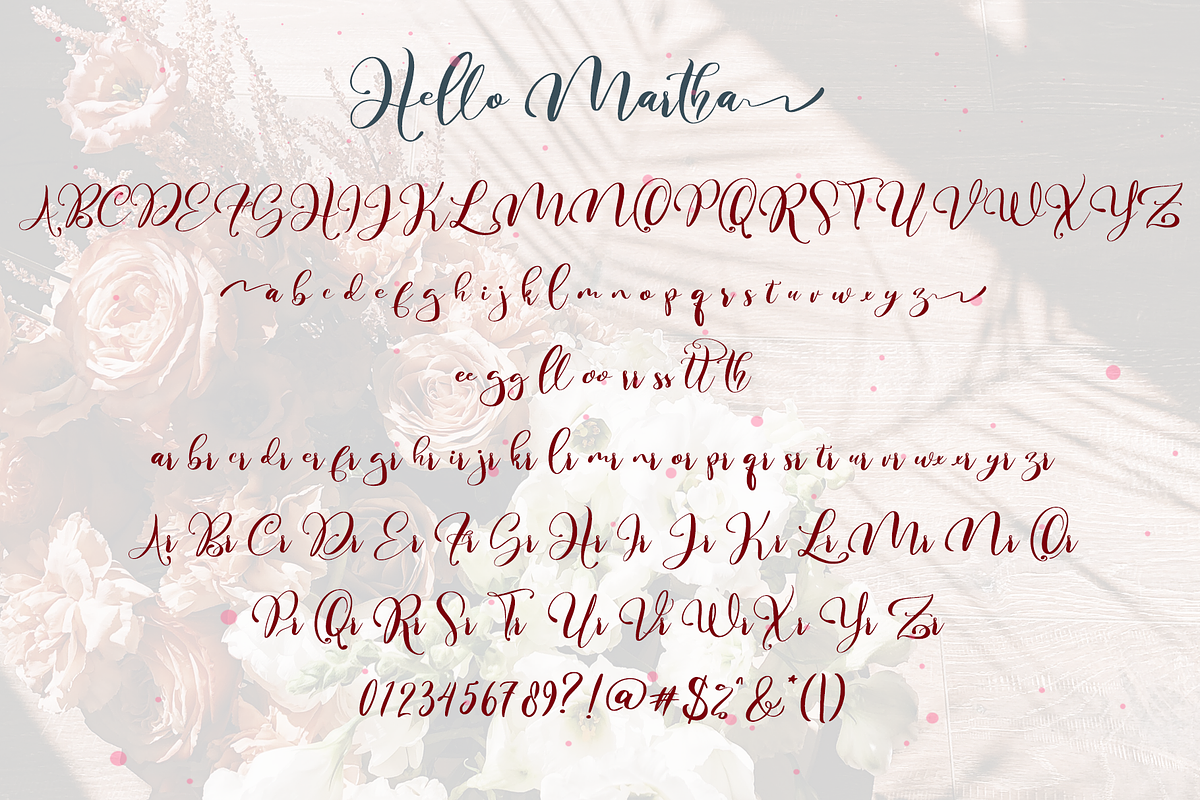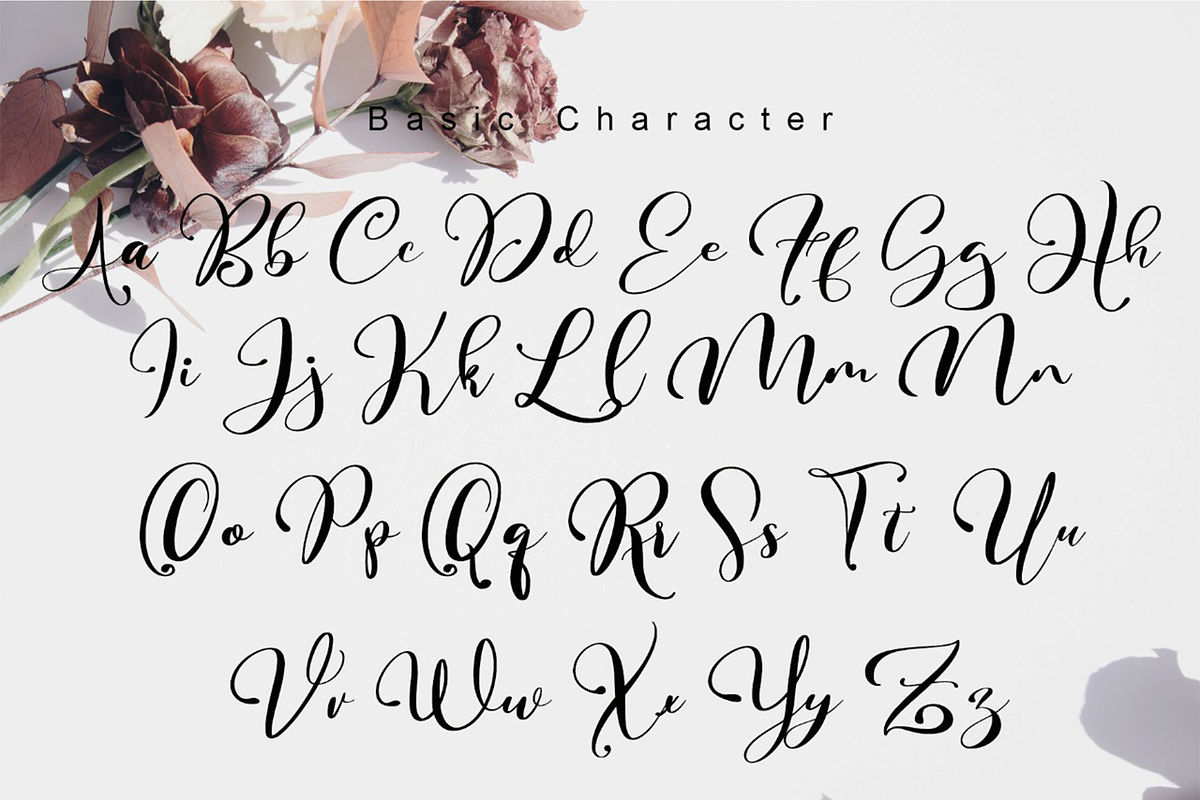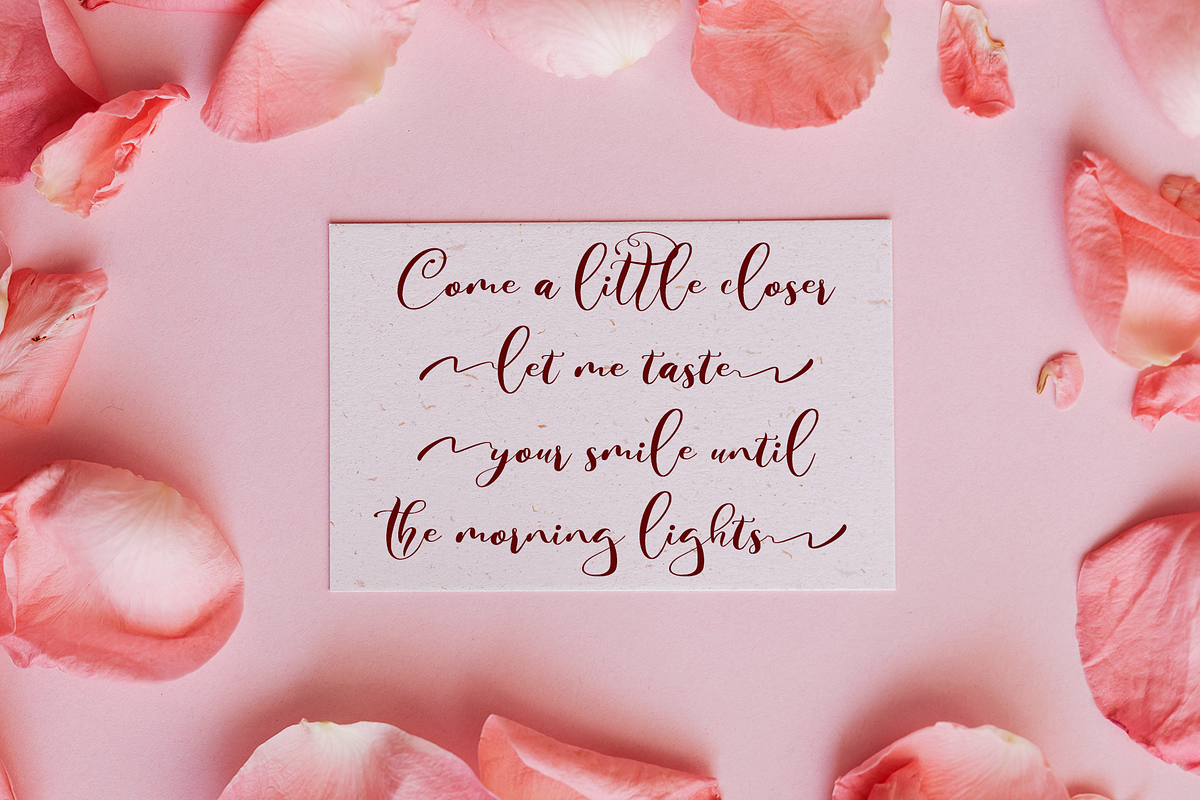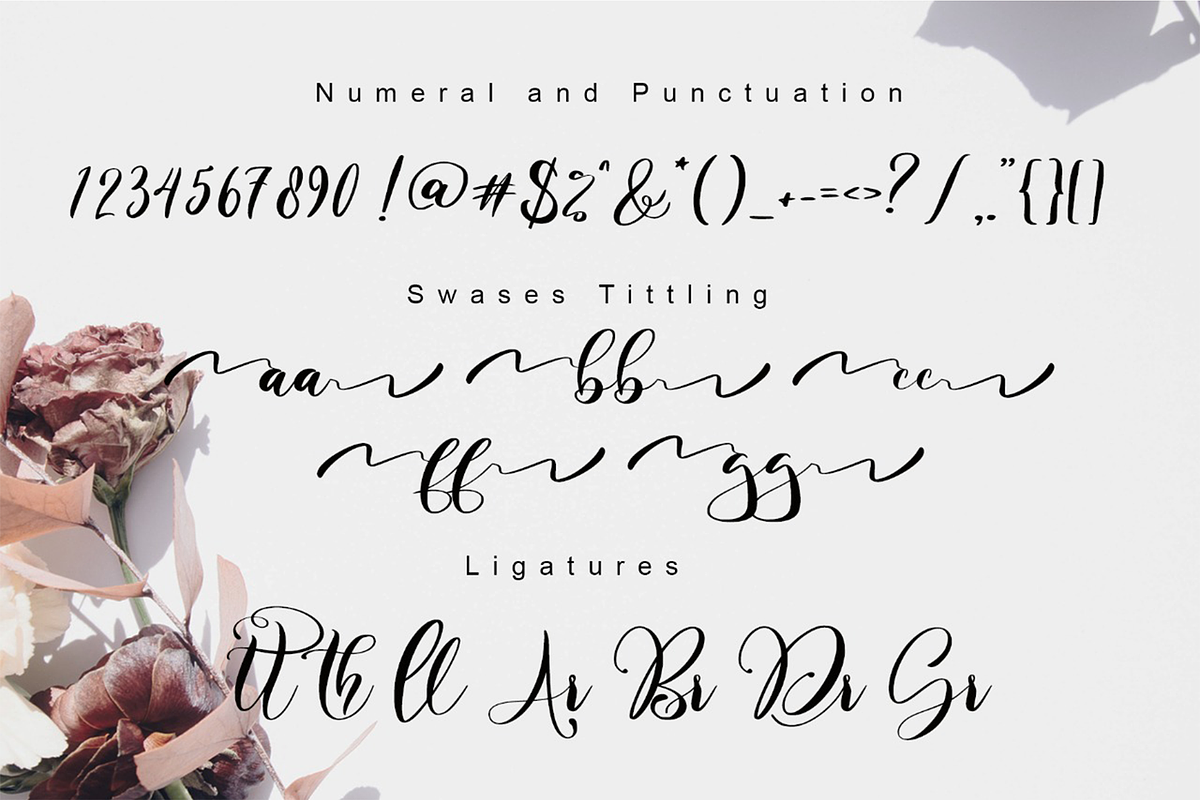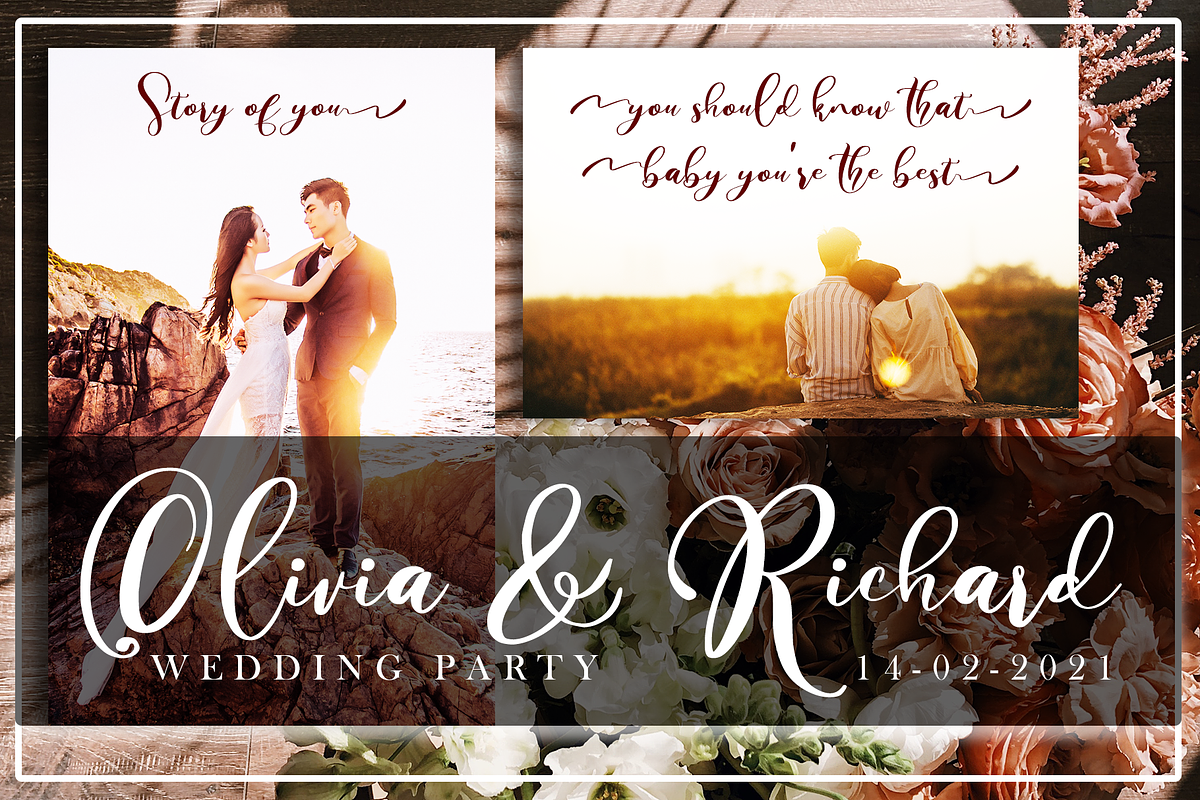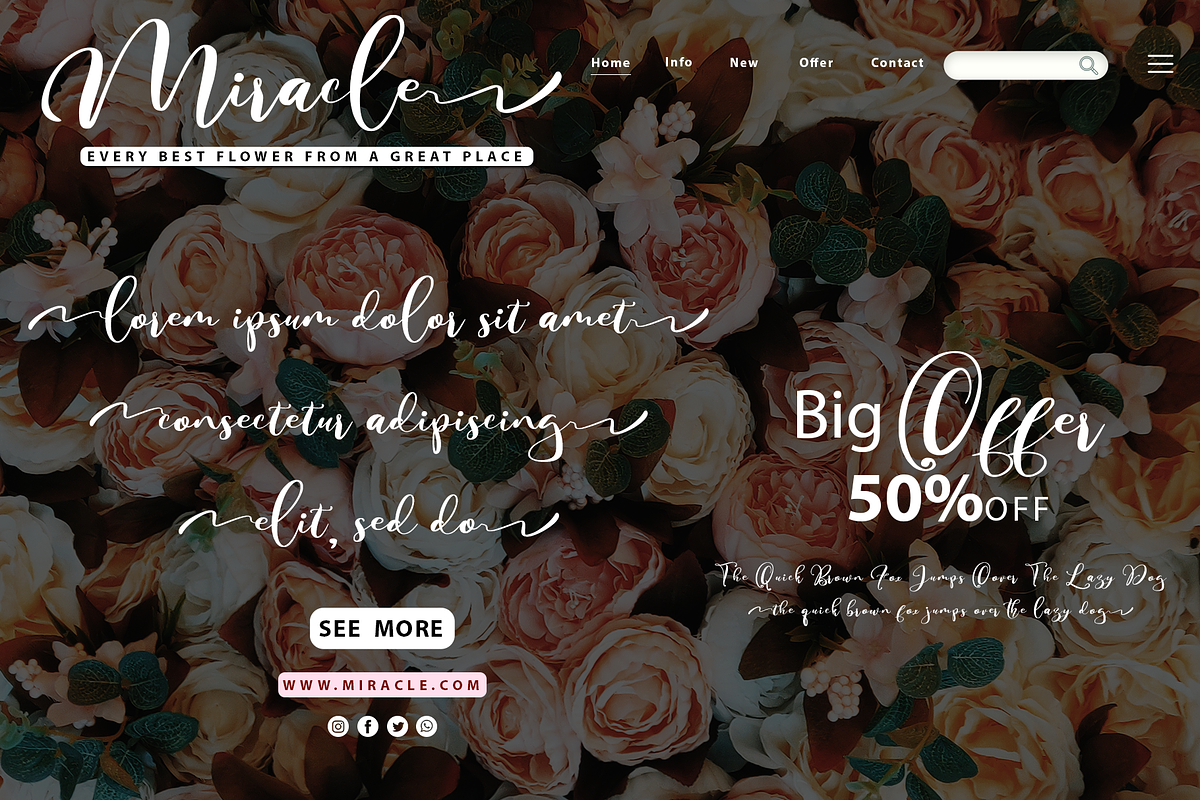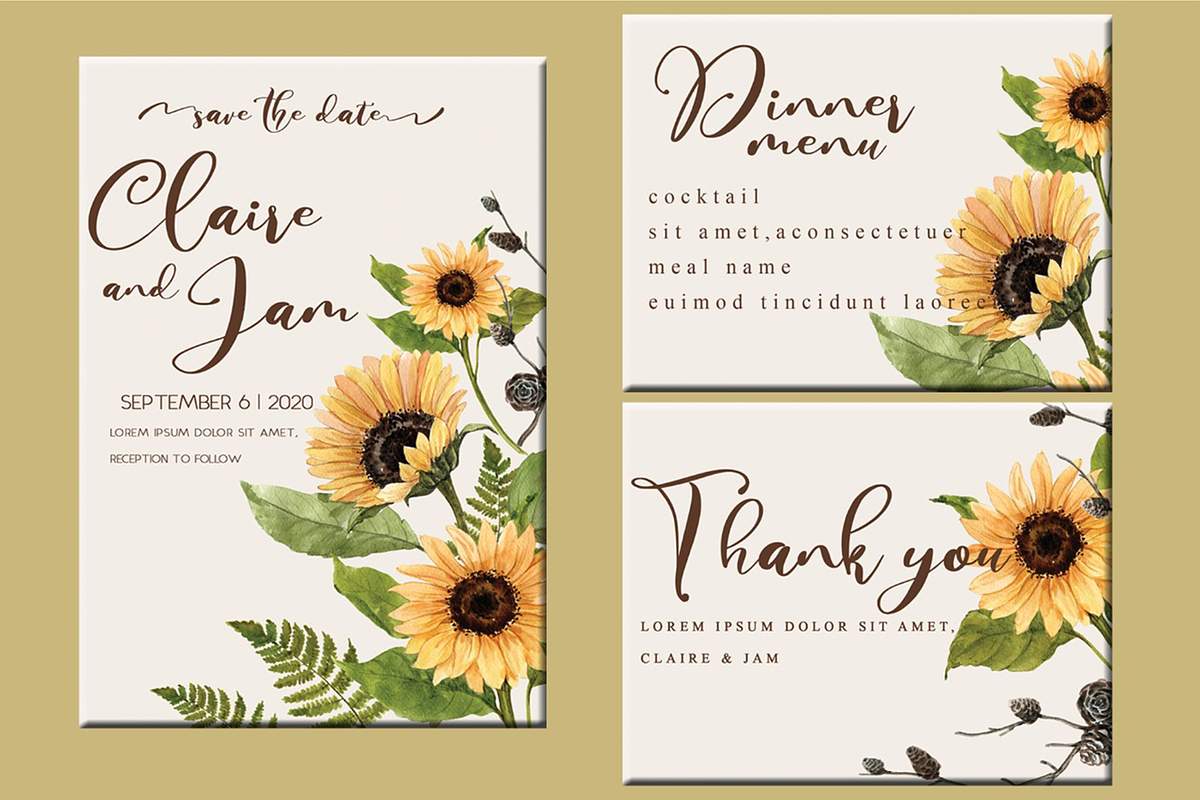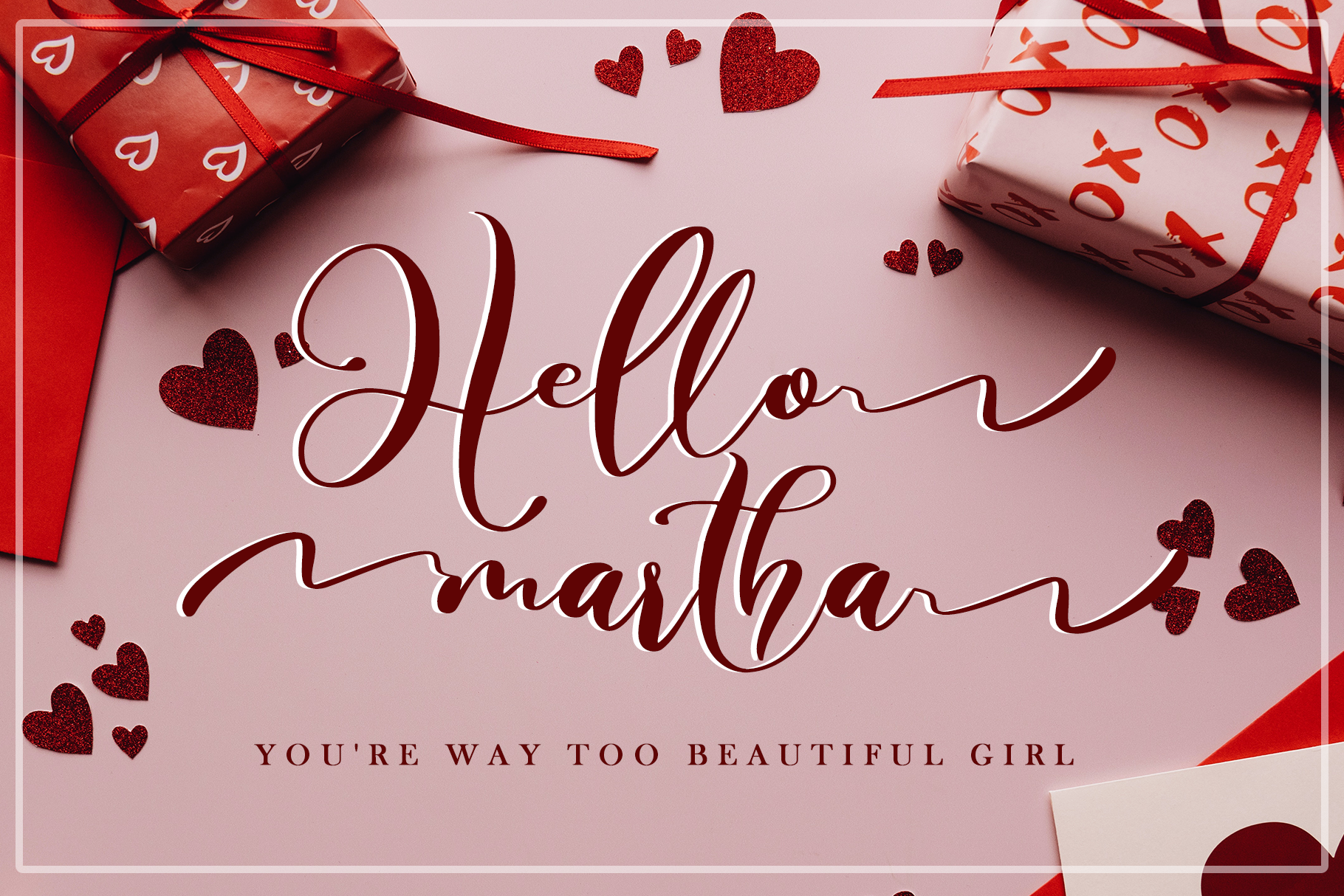
Hello Martha // Elegant Script Font
Hello Martha is a refined, all round, and cursive handwritten font. It has beautiful and well-balanced characters and as a result, it matches a wide pool of designs. This font is PUA encoded which means you can access all of the glyphs and swashes with ease!
Each Font Has:
- Stylish modern handwritten script
- Beautiful Swash (Ending tail)
- Beautiful Titling (Beginning tail)
- Special Ligatures